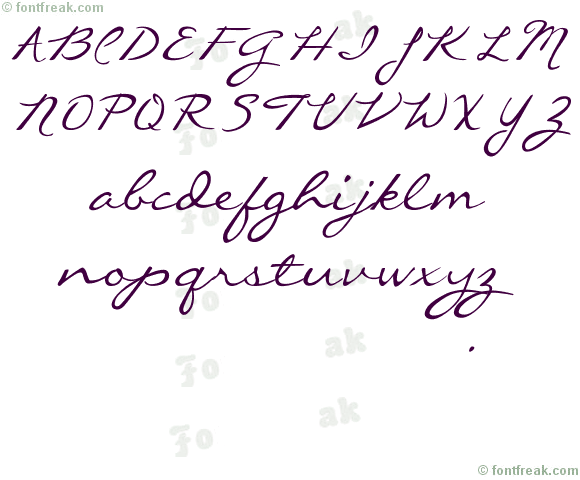
CallieHand
CallieHand by Callie Renee Roberson is a captivating handwritten font that exudes a charming and personal touch. As a script typeface, it beautifully mimics the fluidity of natural handwriting, making it perfect for projects where a sense of warmth and authenticity is desired. The strokes of CallieHand feature a medium weight with gentle variations in contrast, giving the font a dynamic and engaging appearance. Its spacing is thoughtfully designed to enhance readability while maintaining an organic feel, ensuring each letter flows seamlessly into the next.
This font is an excellent choice for a variety of creative applications. It shines in wedding invitations, where its elegant curves can convey romance and intimacy. Additionally, CallieHand works wonderfully for greeting cards, adding a personal touch to heartfelt messages. Small business owners can also utilize this font for branding elements, such as menus or signage, particularly in cafes and boutiques that wish to evoke a cozy atmosphere. Content creators, including bloggers and social media managers, will find CallieHand ideal for headlines or quotes, as it can attract attention while still being approachable.
The target audience for CallieHand includes graphic designers, small business owners, and content creators who are looking to add a unique flair to their projects. Its versatile yet distinctive character makes it suitable for both digital and print media.
What sets CallieHand apart is its ability to evoke emotion while remaining highly functional. The combination of its handwritten aesthetic and legibility makes it a standout choice for those seeking a font that captures the essence of personal expression. For anyone interested in enhancing their projects with a touch of individuality, the CallieHand font free download is an opportunity not to be missed.